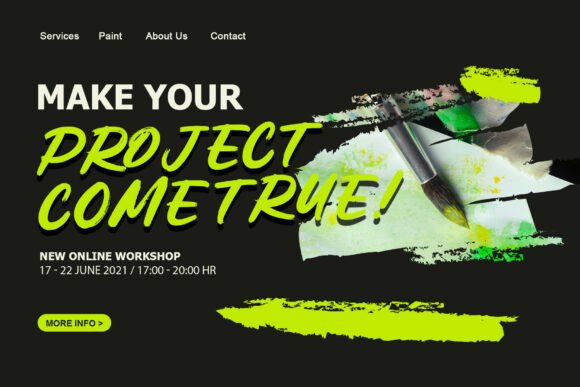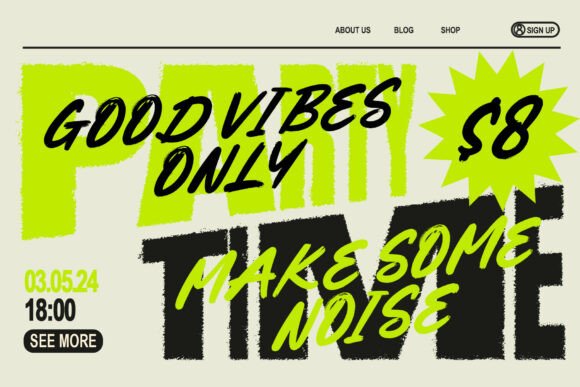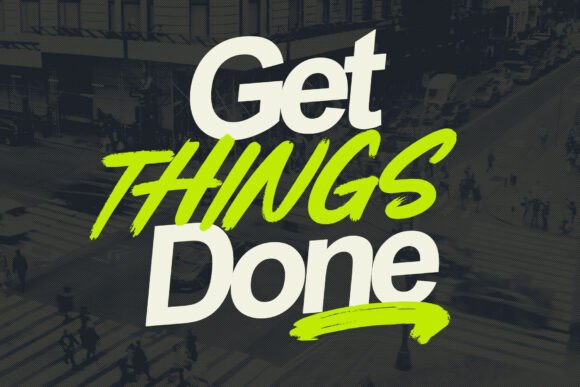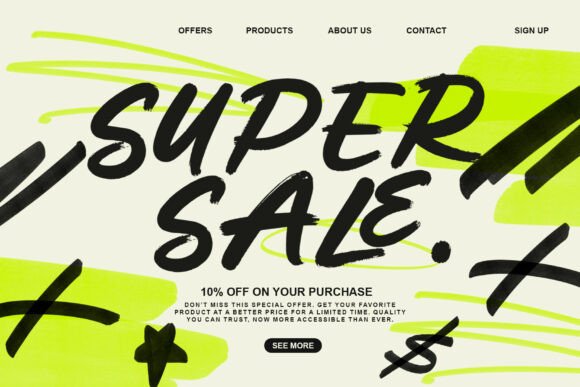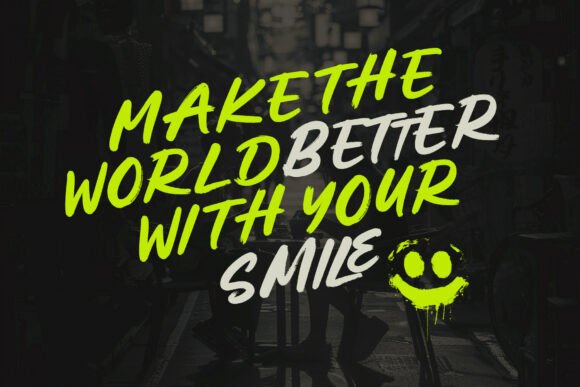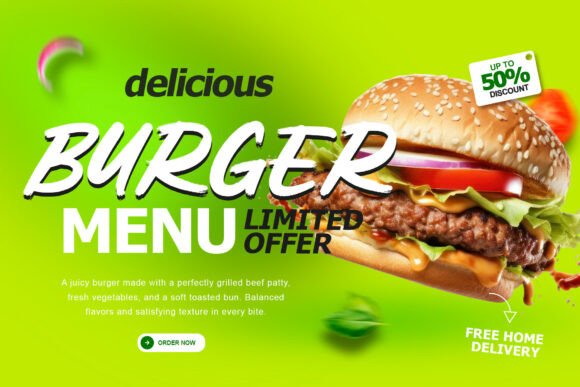
Unleash Your Design Potential with Creative Energy Font
Are you tired of using the same old fonts in your designs? Do you want to add a spark of creativity and energy to your projects? Look no further than the Creative Energy font, a modern brush font that is fueled by motion, expression, and unstoppable momentum.
What is Creative Energy Font?
Creative Energy is a dynamic and expressive font that captures the raw power of hand-drawn movement and contemporary design attitude. Every stroke pulses with bold creativity, making it perfect for high-impact designs that demand presence. Whether you’re working on branding, posters, social media visuals, apparel, YouTube thumbnails, or bold digital projects, Creative Energy is the perfect choice.
Key Features of Creative Energy Font
- Dynamic Lines and Expressive Textures: Creative Energy is built with dynamic lines and expressive textures that transform letters into a visual force. This font is alive, confident, and impossible to ignore.
- Fully Loaded with Alternates and PUA Encoding: Creative Energy comes with a wide range of alternates and PUA encoding, giving you total freedom to shape typography that feels fresh, fearless, and endlessly creative.
- Perfect for High-Impact Designs: Creative Energy thrives in high-impact designs such as branding, posters, social media visuals, apparel, YouTube thumbnails, and bold digital projects.
Why Choose Creative Energy Font?
So, why choose Creative Energy font for your next design project? Here are just a few reasons:
- Adds Energy and Movement to Your Designs: Creative Energy font adds a spark of energy and movement to your designs, making them stand out from the crowd.
- Perfect for Creative Professionals: Whether you’re a graphic designer, crafty DIY enthusiast, or social media influencer, Creative Energy font is the perfect choice for anyone looking to add a touch of creativity and personality to their designs.
- Easy to Use and Customize: With its user-friendly design and PUA encoding, Creative Energy font is easy to use and customize, making it perfect for designers of all levels.
How to Use Creative Energy Font in Your Designs
Using Creative Energy font in your designs is easy. Here are a few tips to get you started:
- Pair it with Bold Colors and Graphics: Creative Energy font looks amazing when paired with bold colors and graphics. Try using it with bright and bold hues to add an extra touch of energy to your designs.
- Experiment with Different Alternates: With its wide range of alternates, Creative Energy font offers endless possibilities for customization. Experiment with different alternates to find the perfect look for your design.
- Use it for Headlines and Titles: Creative Energy font is perfect for headlines and titles. Use it to add a touch of creativity and personality to your designs.
In conclusion, Creative Energy font is a modern brush font that is fueled by motion, expression, and unstoppable momentum. With its dynamic lines, expressive textures, and wide range of alternates, it’s the perfect choice for designers looking to add a spark of creativity and energy to their designs. Whether you’re working on branding, posters, social media visuals, or bold digital projects, Creative Energy font is sure to make your designs stand out from the crowd.
So, what are you waiting for? Get ready to unleash your creativity and take your designs to the next level with Creative Energy font. With its bold and fearless design, it’s the perfect choice for anyone looking to add a touch of personality and style to their designs.